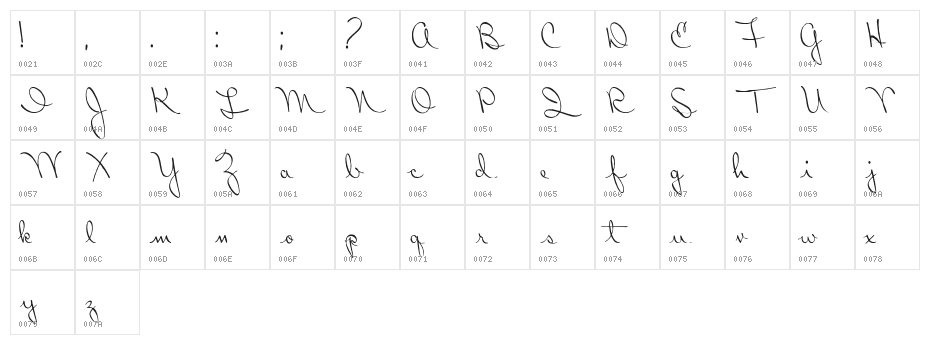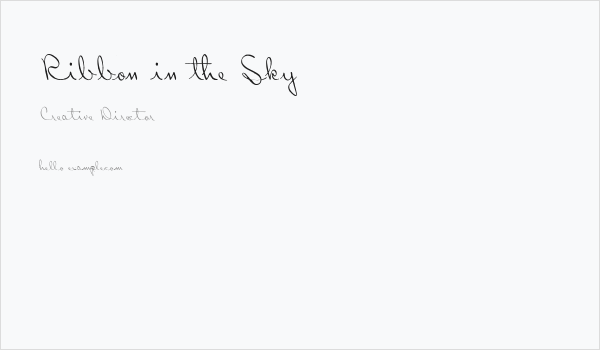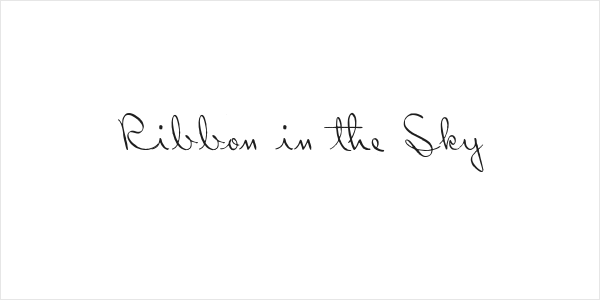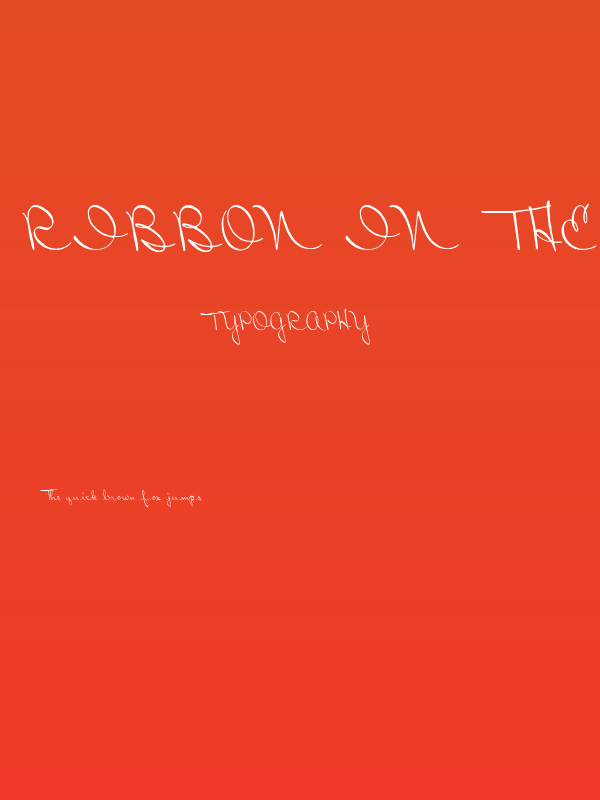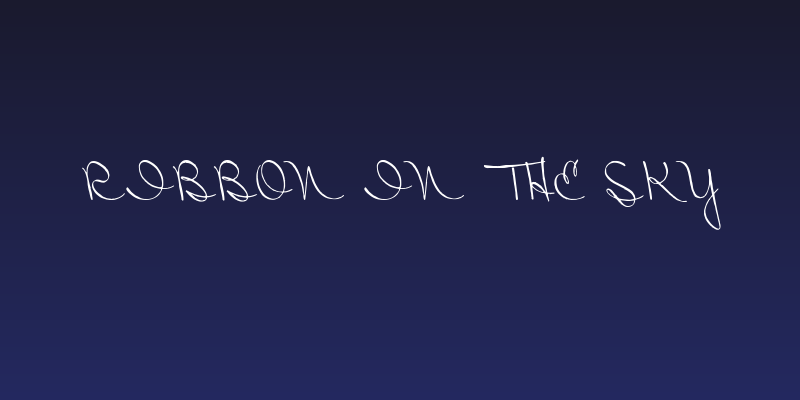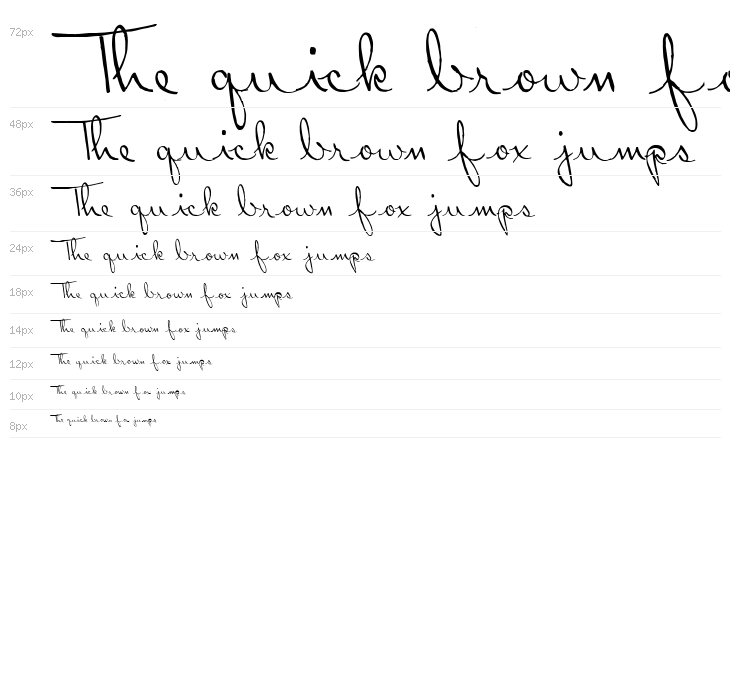
Ribbon in the Sky Font
Ribbon in the Sky Description
This font exudes a whimsical and flowing style, characterized by its cursive, handwritten appearance. The letters are interconnected with smooth, elegant strokes, giving it a sense of movement and grace. The uppercase letters are distinctively larger and more elaborate, while the lowercase letters maintain a consistent flow. The font's playful nature is further emphasized by its unique ligatures and swashes, making it ideal for creative and artistic projects. The overall design is both sophisticated and approachable, suitable for adding a personal touch to any text.
| Proposed Projects | Ideal for wedding invitations, greeting cards, personal branding, and artistic projects. |